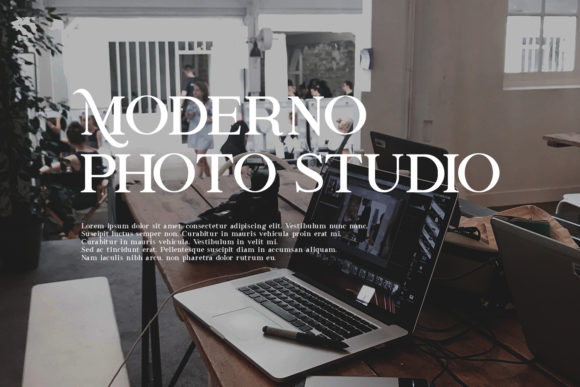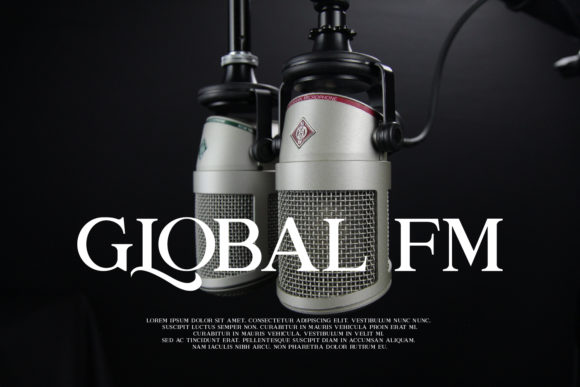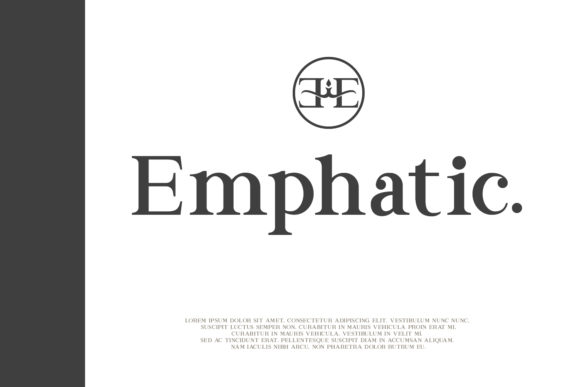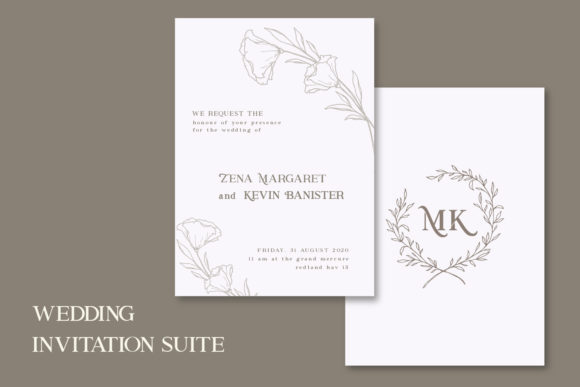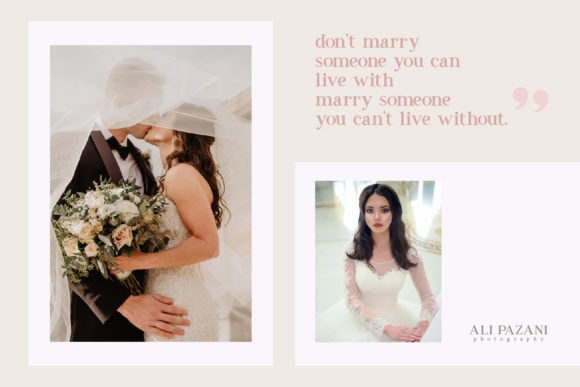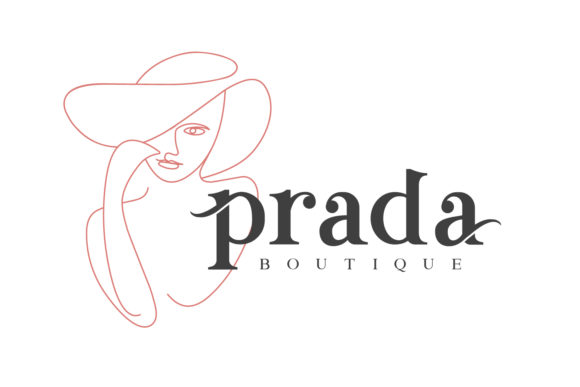
Introducing Emphatic Font: Elevate Your Designs with Elegance and Authenticity
In the world of typography, the right font can make all the difference in elevating your design from ordinary to extraordinary. If you’re on the hunt for a typeface that exudes simplicity, elegance, and authenticity, look no further than Emphatic – Serif Font. This versatile font is designed to seamlessly match a wide array of projects, allowing your creative ideas to shine with distinction.
What is Emphatic Font?
Emphatic – Serif Font is a thoughtfully crafted serif font that embodies a perfect blend of classic sophistication and modern appeal. Its clean lines, balanced proportions, and meticulous attention to detail make it an excellent choice for designers and crafters seeking to add a touch of refinement to their work.
Key Features of Emphatic Font
So, what makes Emphatic Font stand out from the crowd? Let’s take a closer look at its impressive feature set:
- Uppercase Characters + Stylistic Alternates: Emphatic Font includes a comprehensive set of uppercase characters, each carefully designed to ensure maximum legibility and aesthetic appeal. The addition of stylistic alternates provides you with even more creative flexibility.
- Lowercase Characters + Stylistic Alternates: The lowercase characters in Emphatic Font are equally impressive, offering a smooth reading experience and a wide range of design possibilities. Like their uppercase counterparts, they also come with stylistic alternates.
- Ligatures: Enhance your typography with Emphatic Font’s ligatures, designed to improve the visual flow of your text and add an extra layer of sophistication.
- Numerals: Whether you’re working on a design that requires numerical data or simply want to add a numeric element, Emphatic Font’s numerals are both clear and stylish.
- Punctuation: Complete with a full set of punctuation marks, Emphatic Font ensures that your designs are not only beautiful but also fully functional.
- Multilingual Support: In today’s globalized world, supporting multiple languages is crucial. Emphatic Font rises to the challenge, offering extensive multilingual support to help you reach a broader audience.
- Emphatic Regular: The standard version of the font, perfect for headings, paragraphs, and any text where you want to make a statement with elegance.
- Emphatic Italic: Adding a touch of dynamism to your designs, the italic version of Emphatic Font is ideal for highlighting specific sections, adding quotes, or creating visual interest.
Why Choose Emphatic Font?
With so many fonts available, why should Emphatic – Serif Font be your go-to choice? Here are a few compelling reasons:
- Versatility: Its simple yet distinctive design makes it suitable for a vast range of projects, from branding and advertising to web design and publishing.
Applications of Emphatic Font
The applications of Emphatic – Serif Font are as varied as they are exciting. Here are a few ideas to get you started:
- Branding and Logo Design: Create a lasting impression with a custom logo or brand identity that leverages the elegance of Emphatic Font.
- Web Design: Enhance your website’s typography, making it more engaging and accessible to your visitors.
- Print Design: From brochures and magazines to books and posters, Emphatic Font adds a professional touch to any print project.
- Digital Media: Use Emphatic Font in your digital creations, such as videos, presentations, and social media graphics, to elevate their visual appeal.
Emphatic – Serif Font stands out in the crowded world of typography with its unique blend of simplicity, elegance, and authenticity. Whether you’re a professional designer or a crafty DIY enthusiast, this versatile font has the potential to transform your projects, making them stand out with sophistication and style. With its comprehensive feature set, ease of use, and wide range of applications, Emphatic Font is an invaluable addition to any creative toolkit.